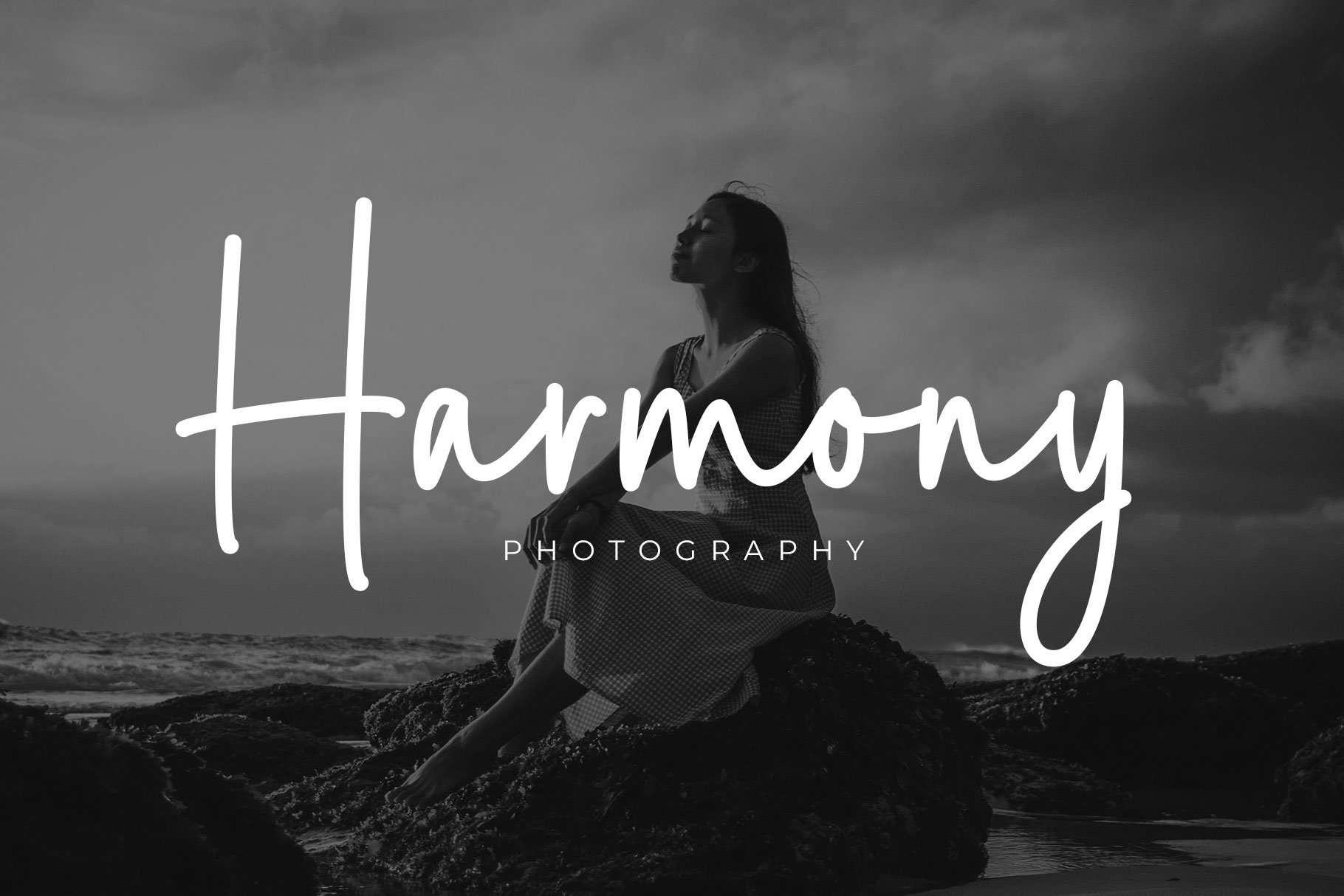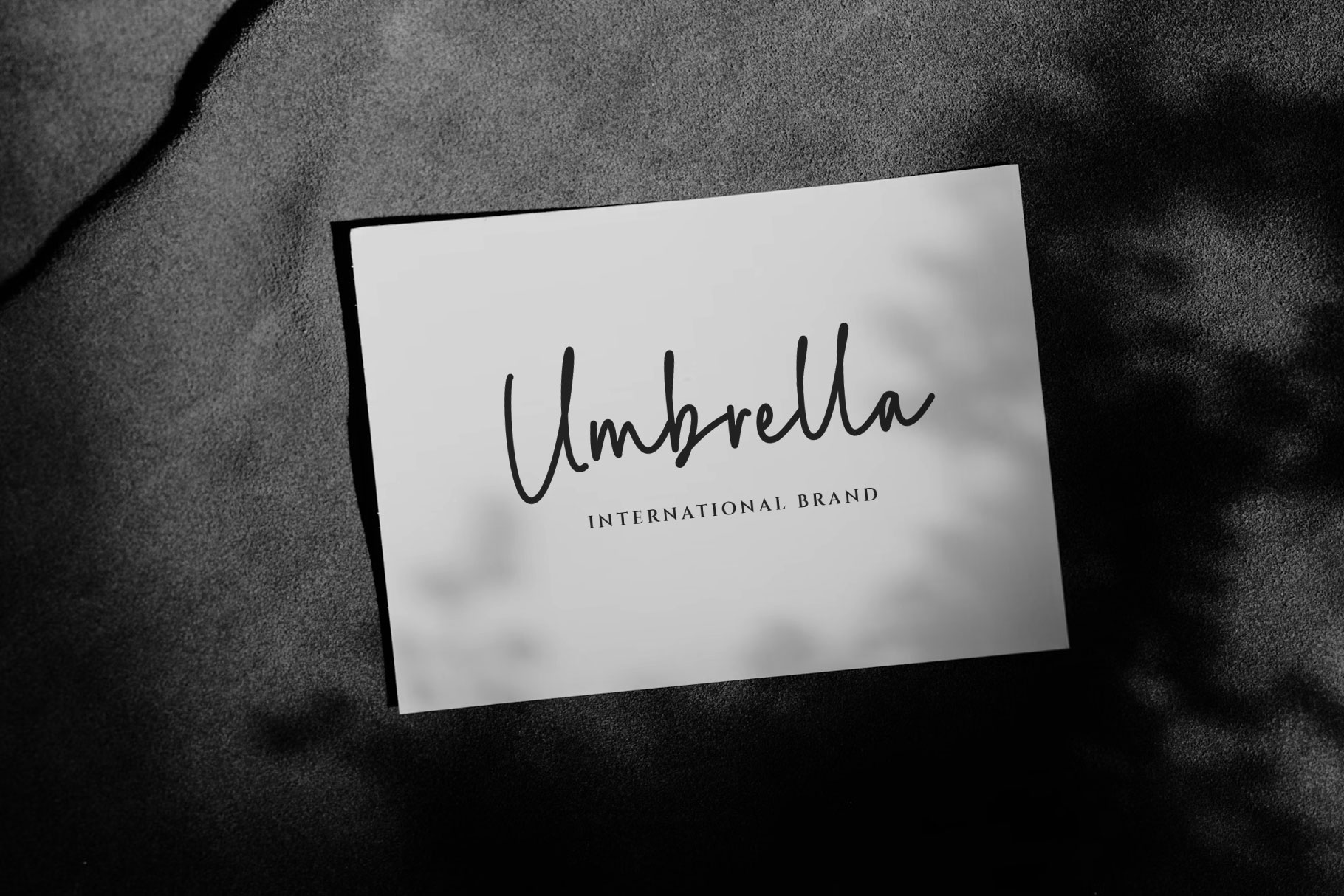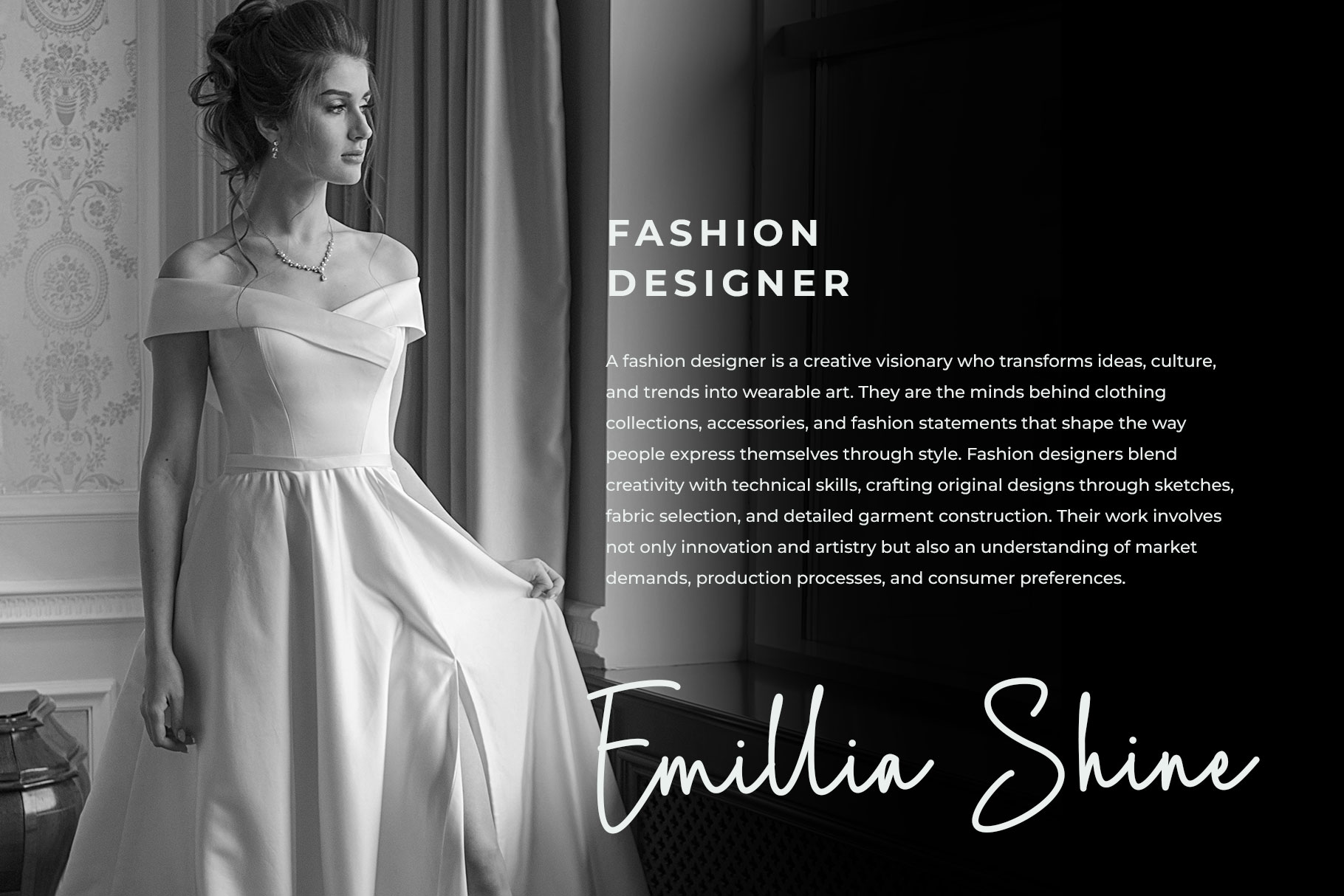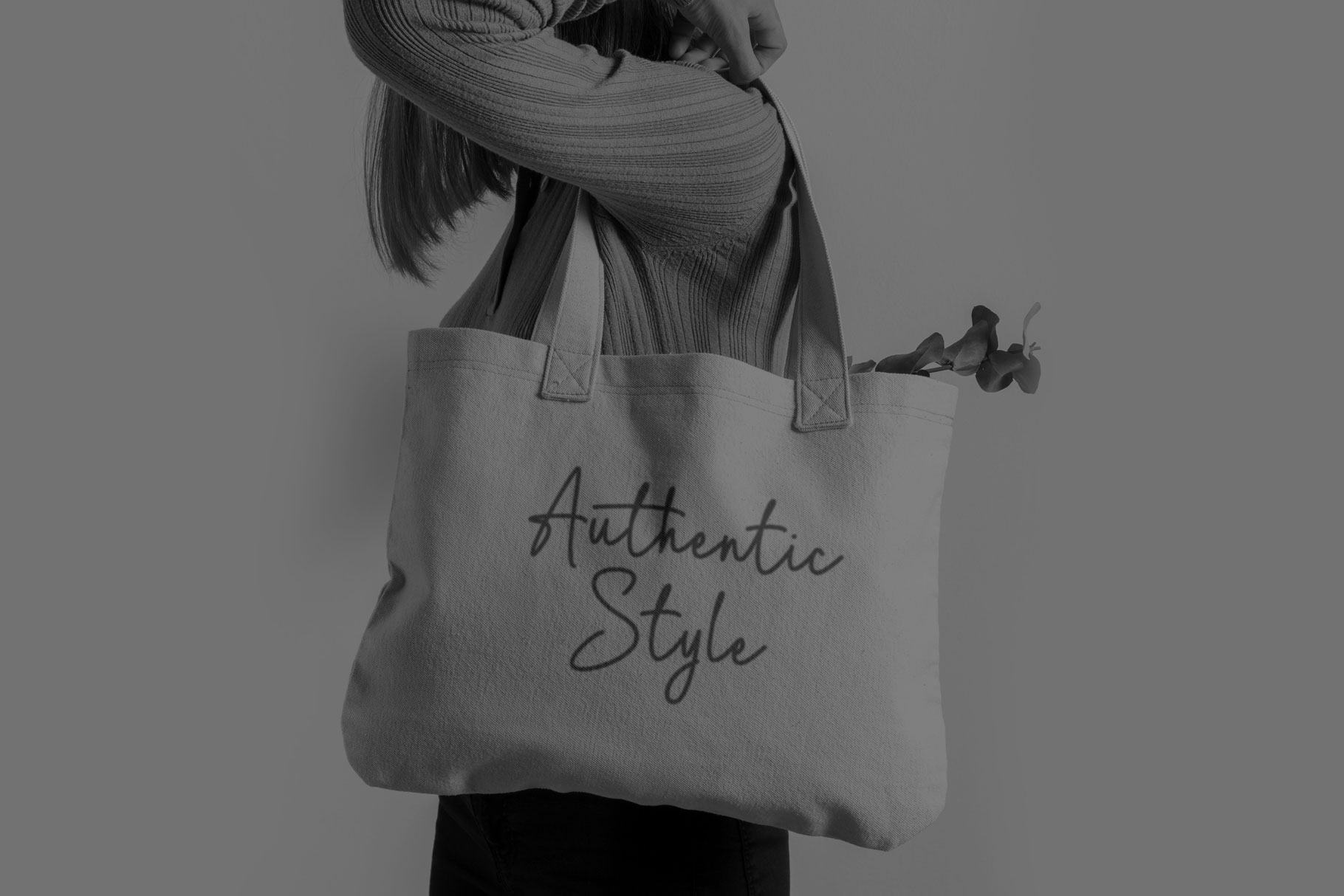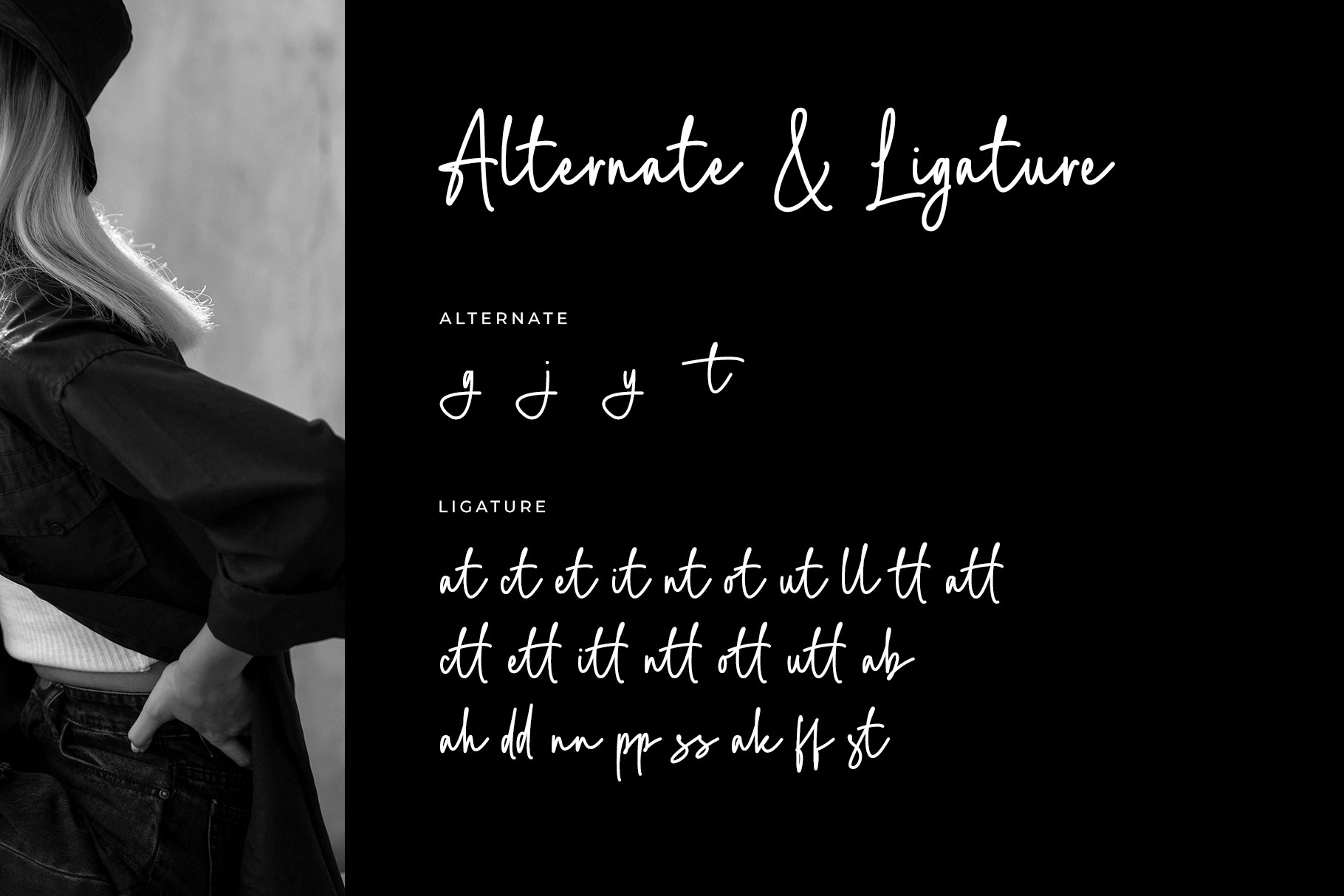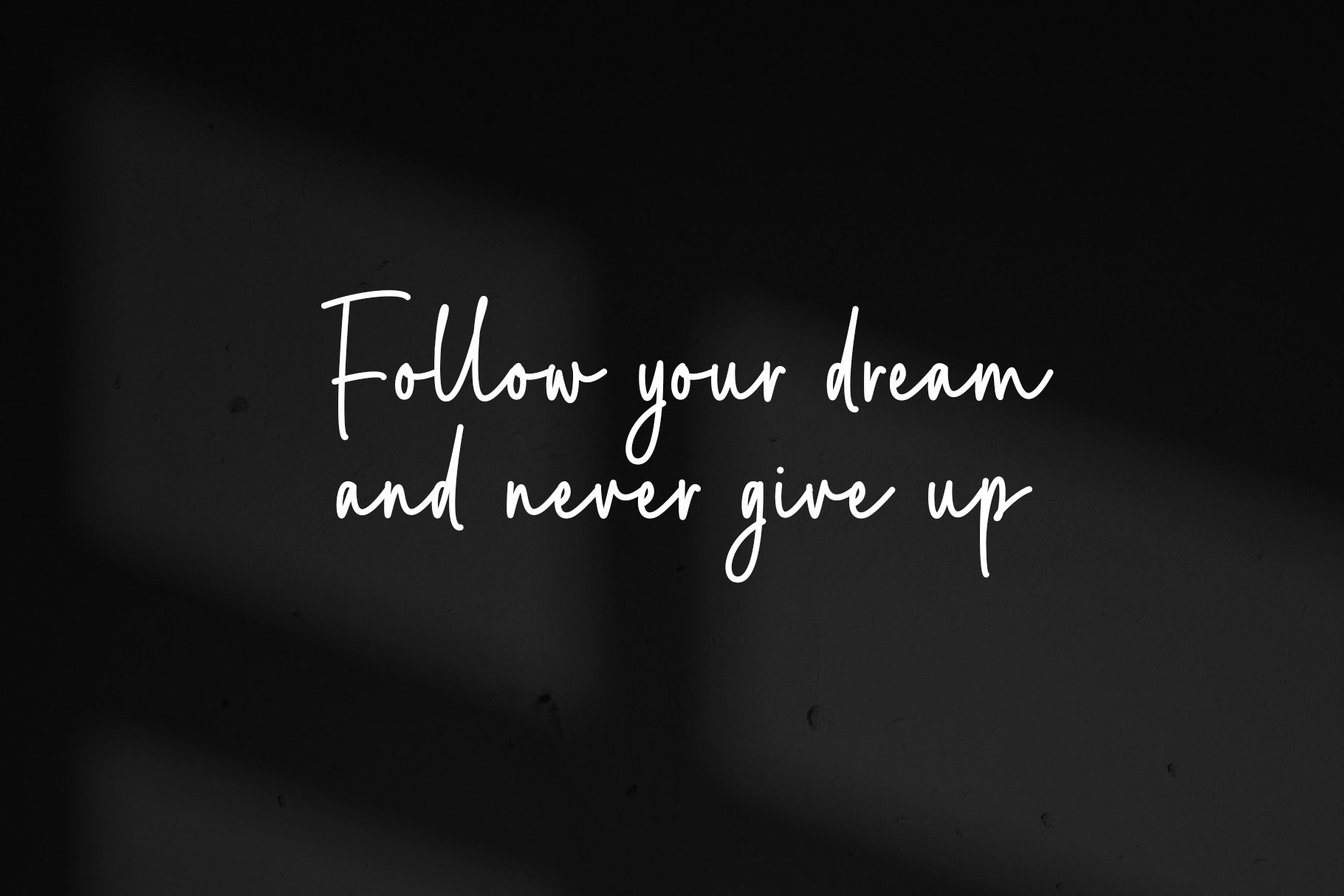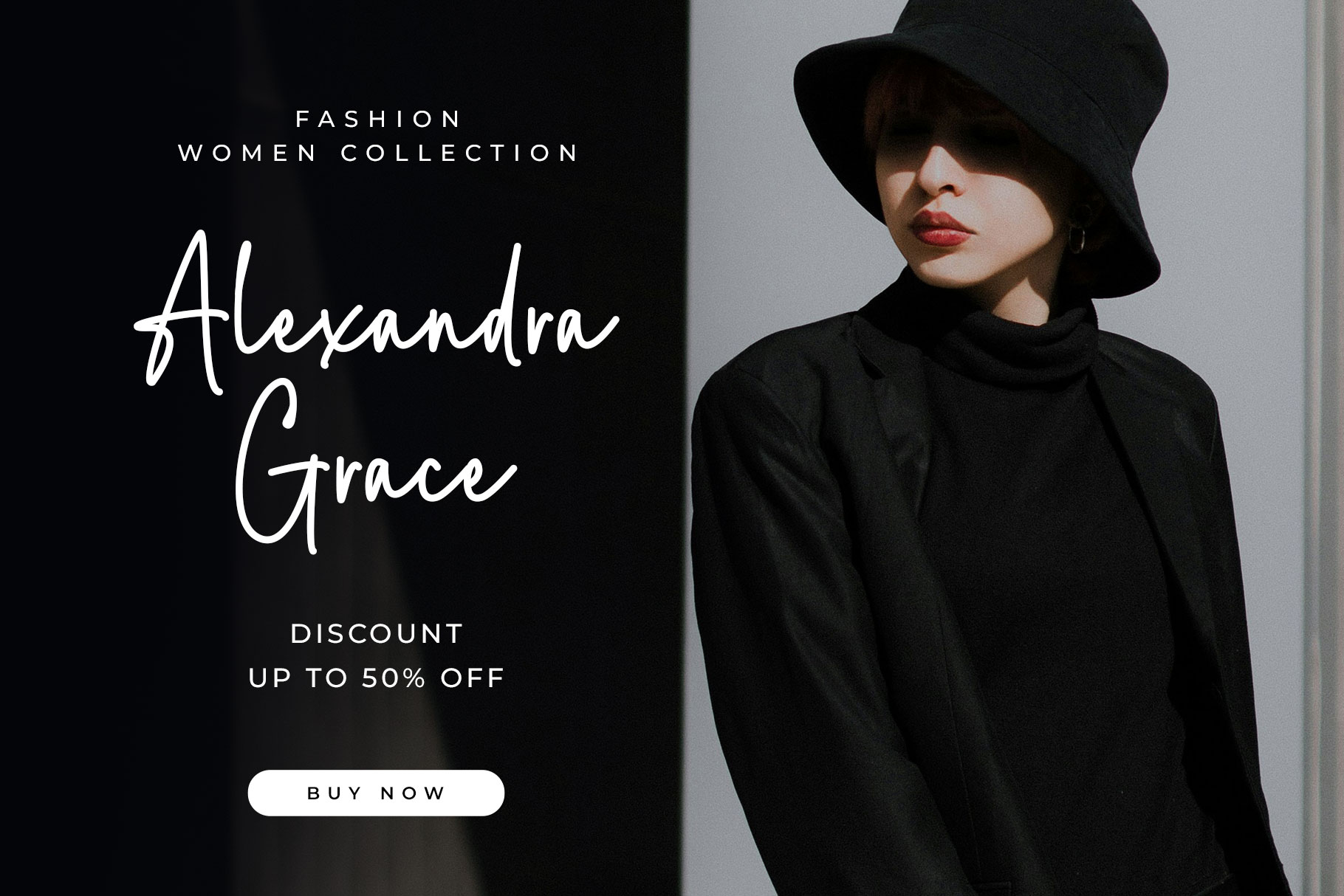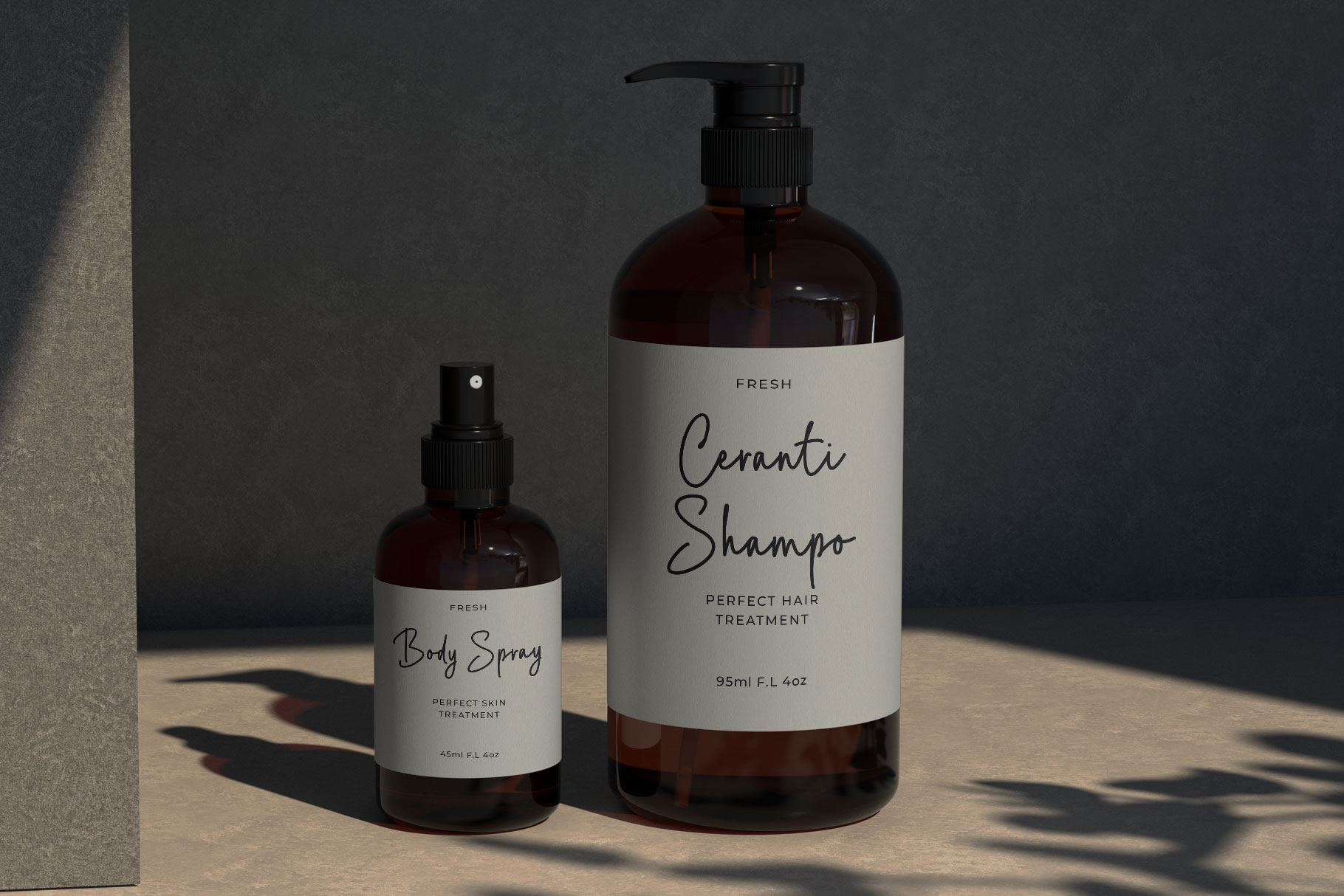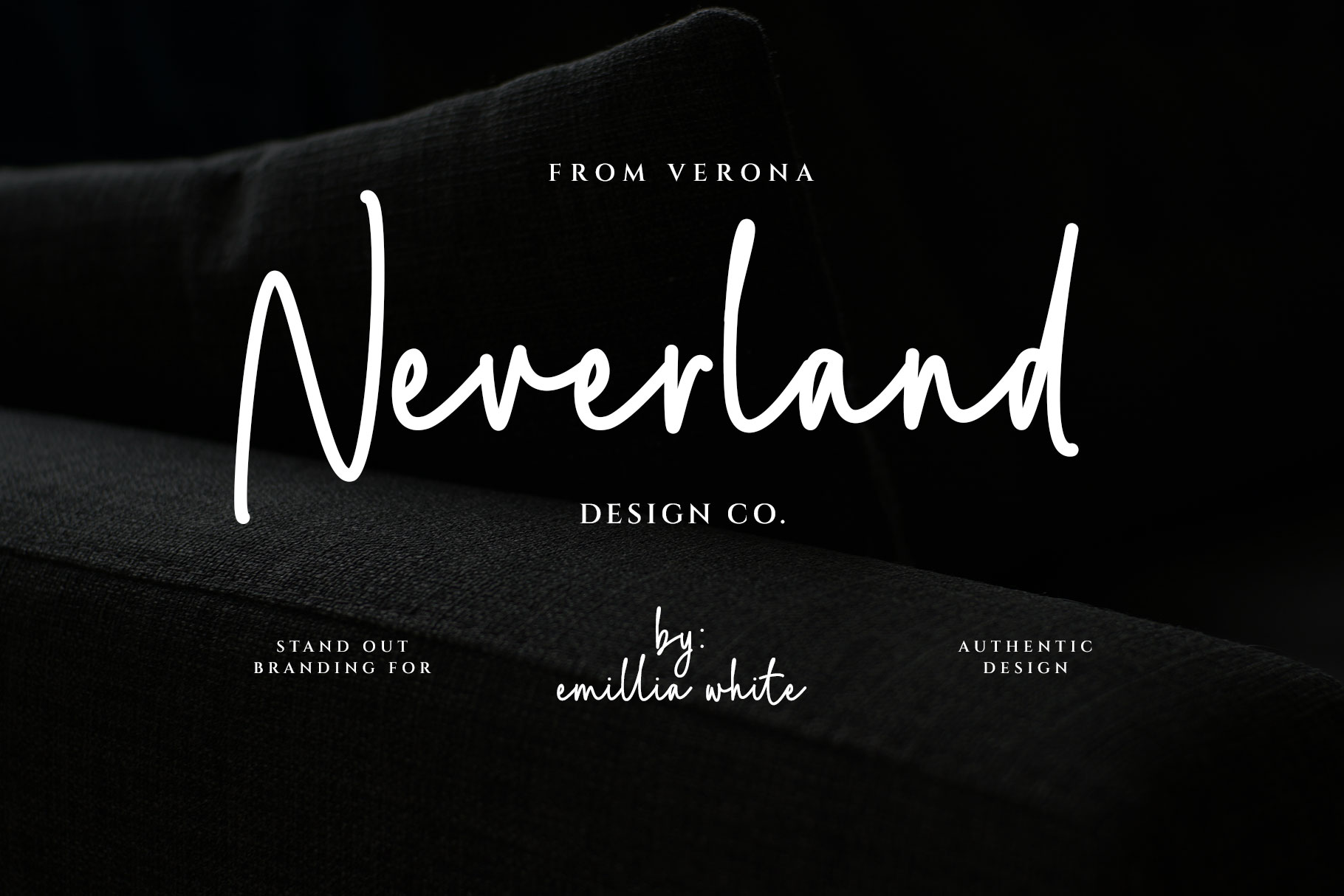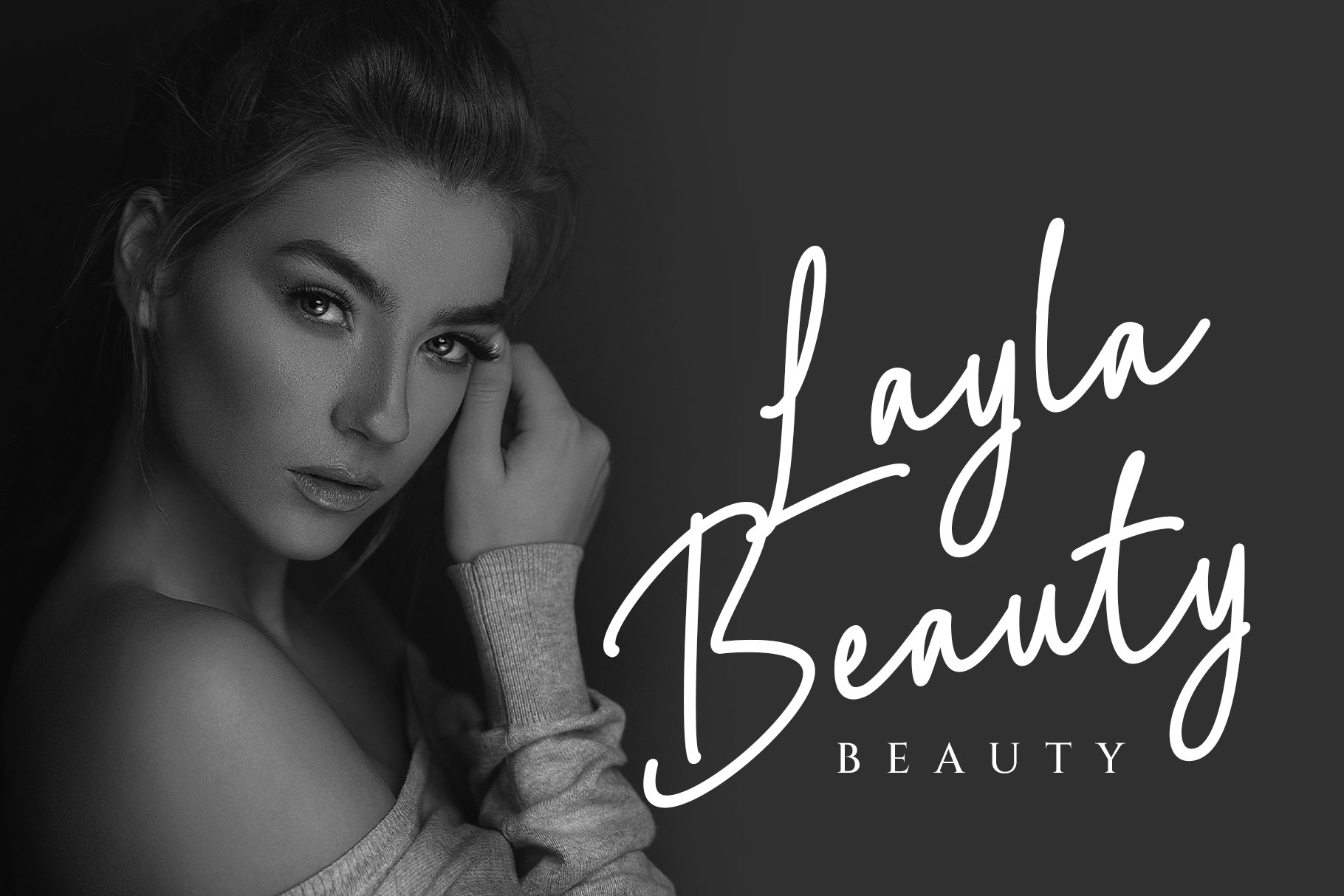
Bastriya Modern Script Font
Bastriya is modern script font with monoline single stroke embra grace and feminity. Batriya is a perfectly choice for any creative endeavor, creating, modern, lifestyle design such as logotype, title, cover, branding, invitations, wedding designs, display and magazine, social media posts, advertisements, printed quotes, product packaging, corporate brand, product designs, labels, photography, watermarks, special events and any other project with elegant touch.